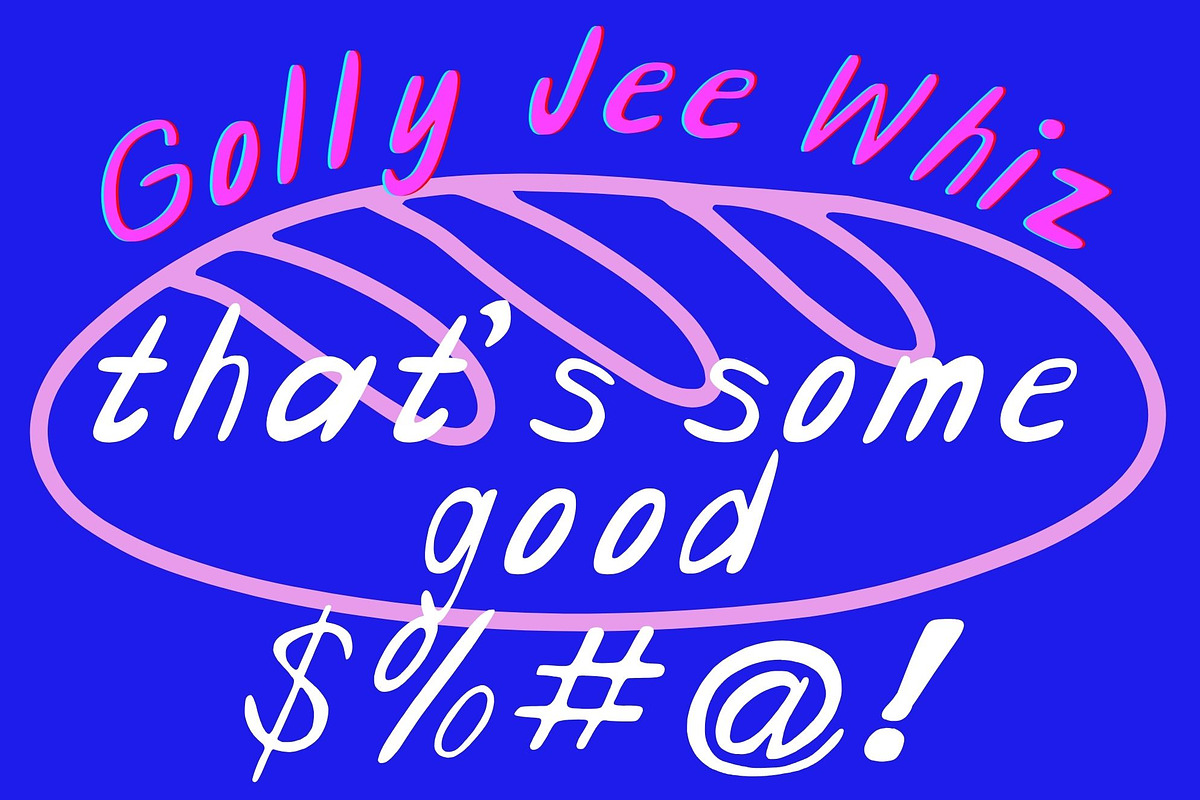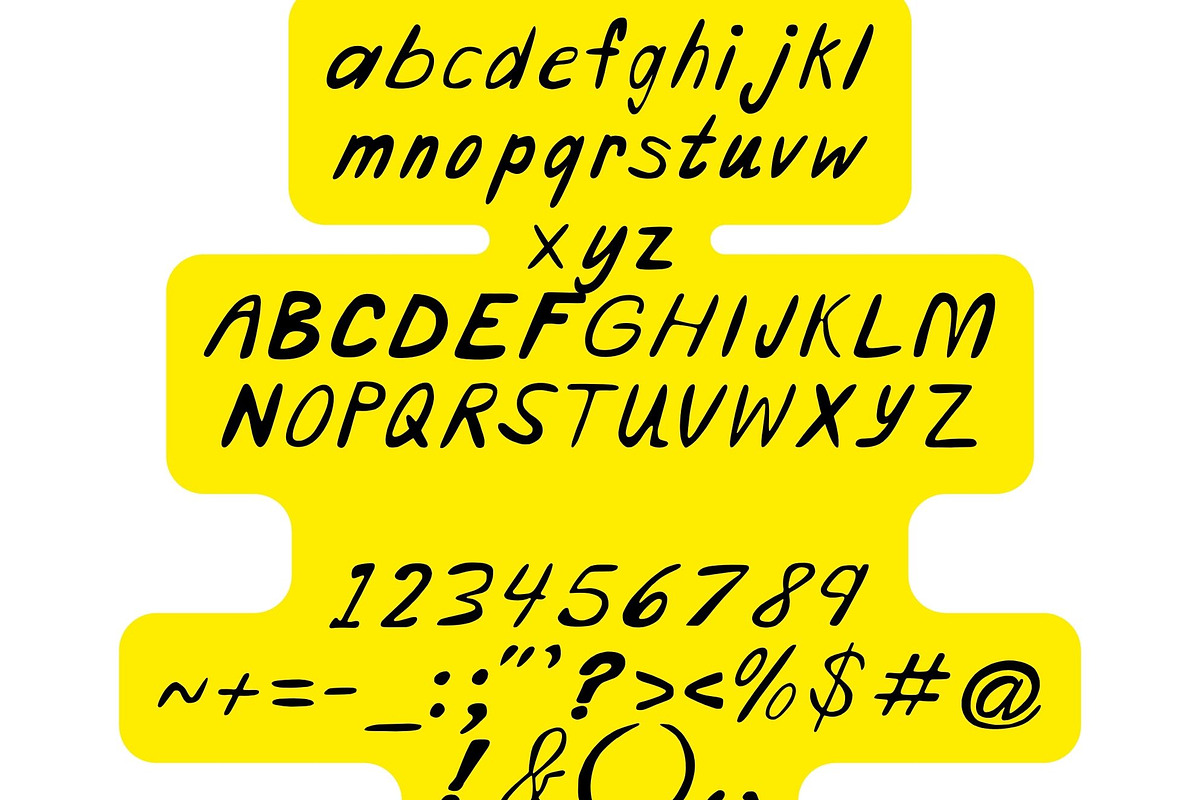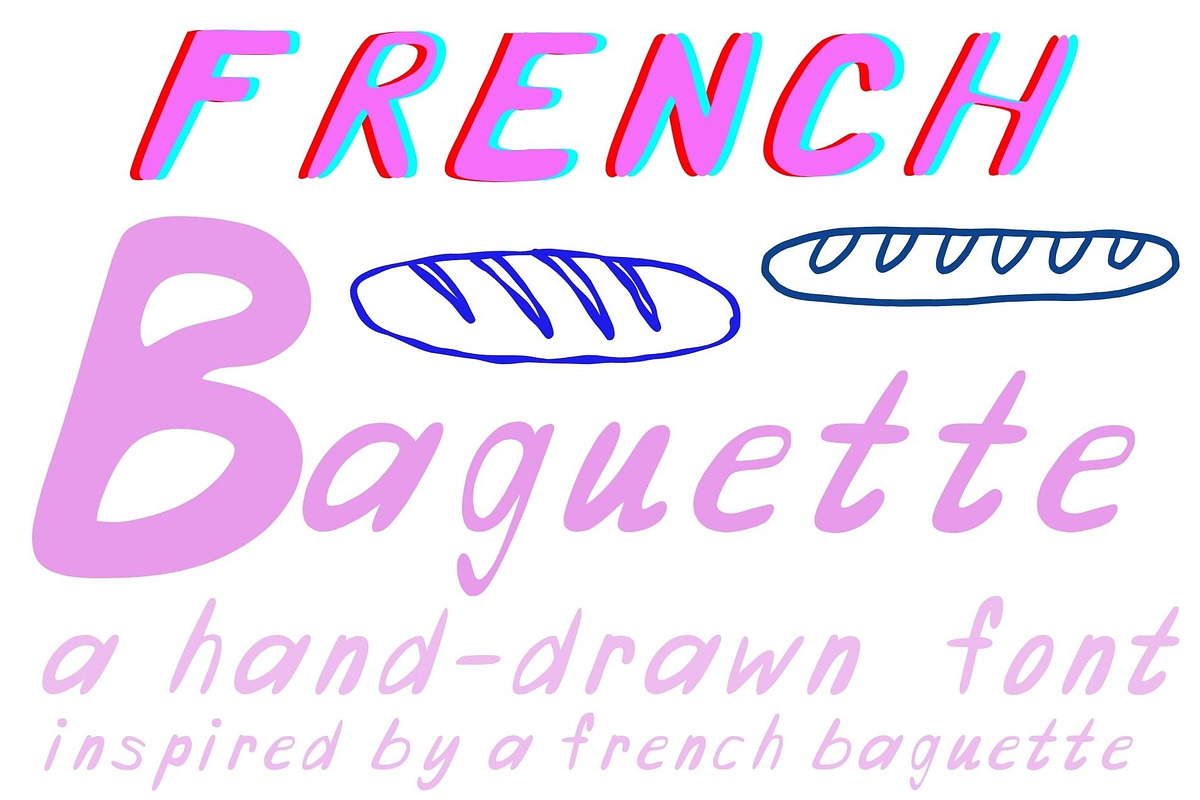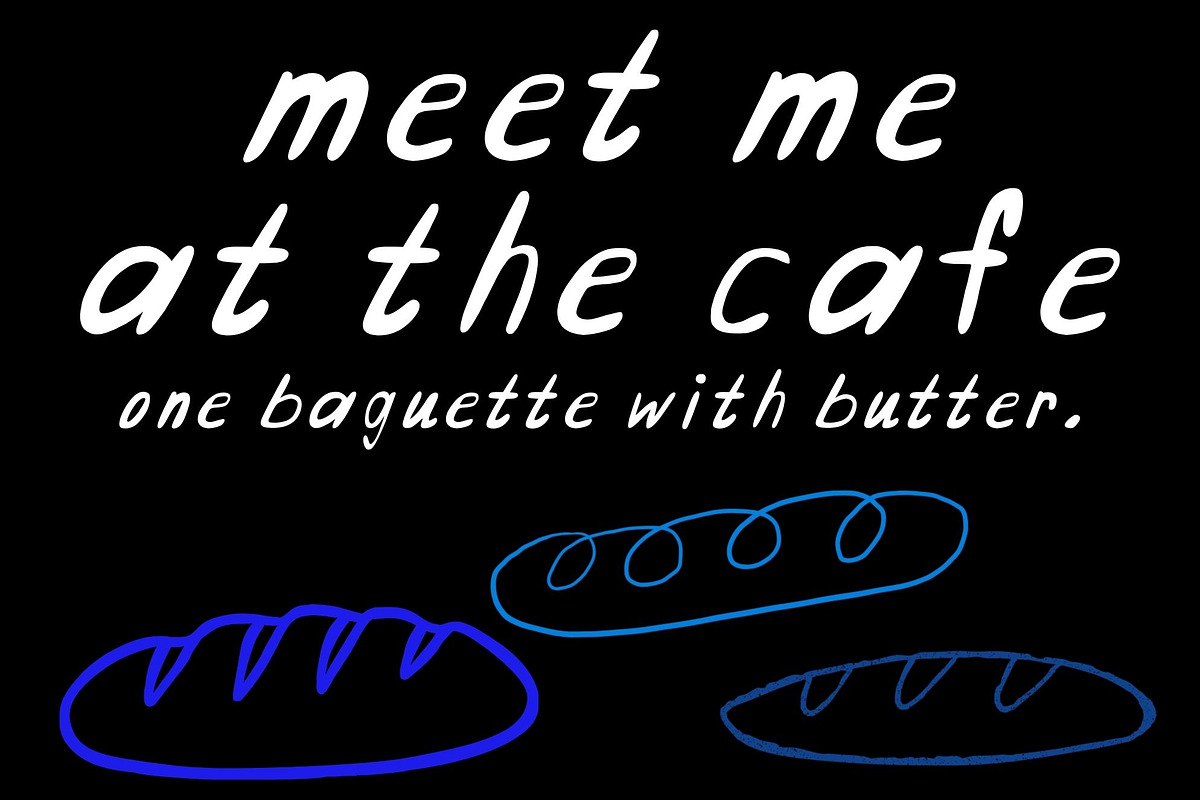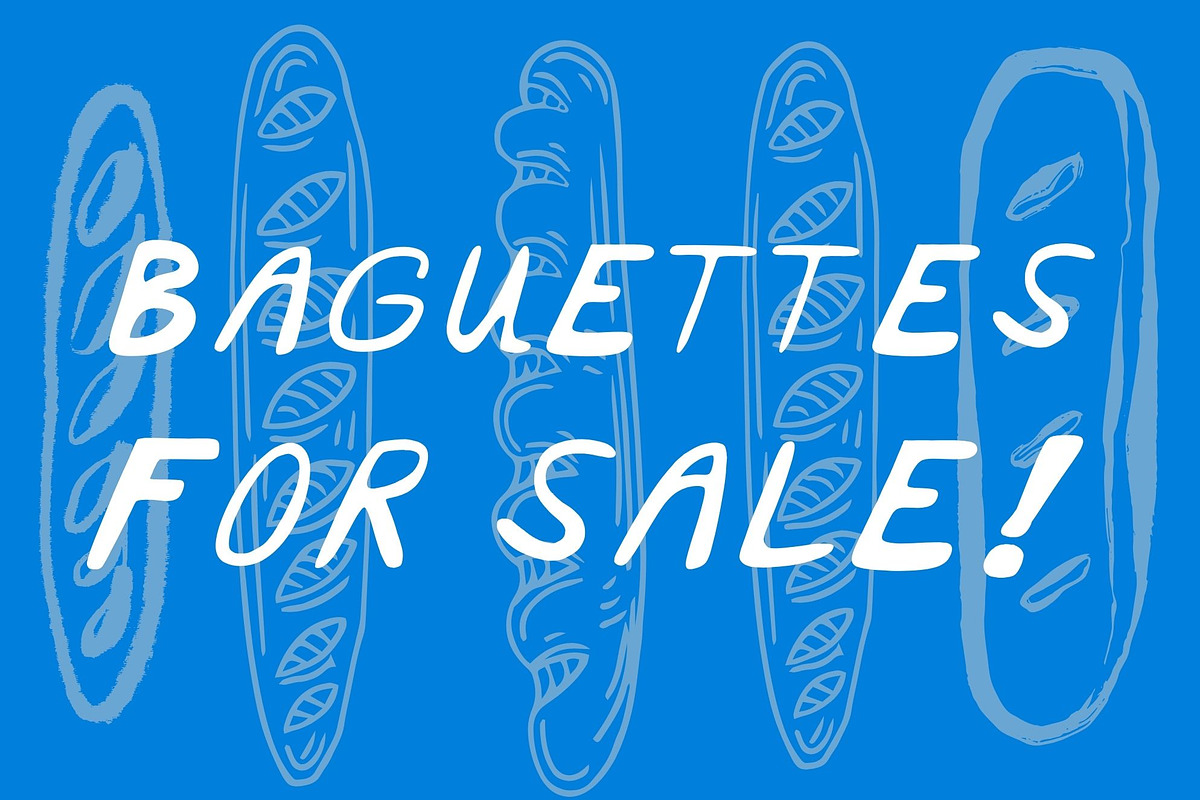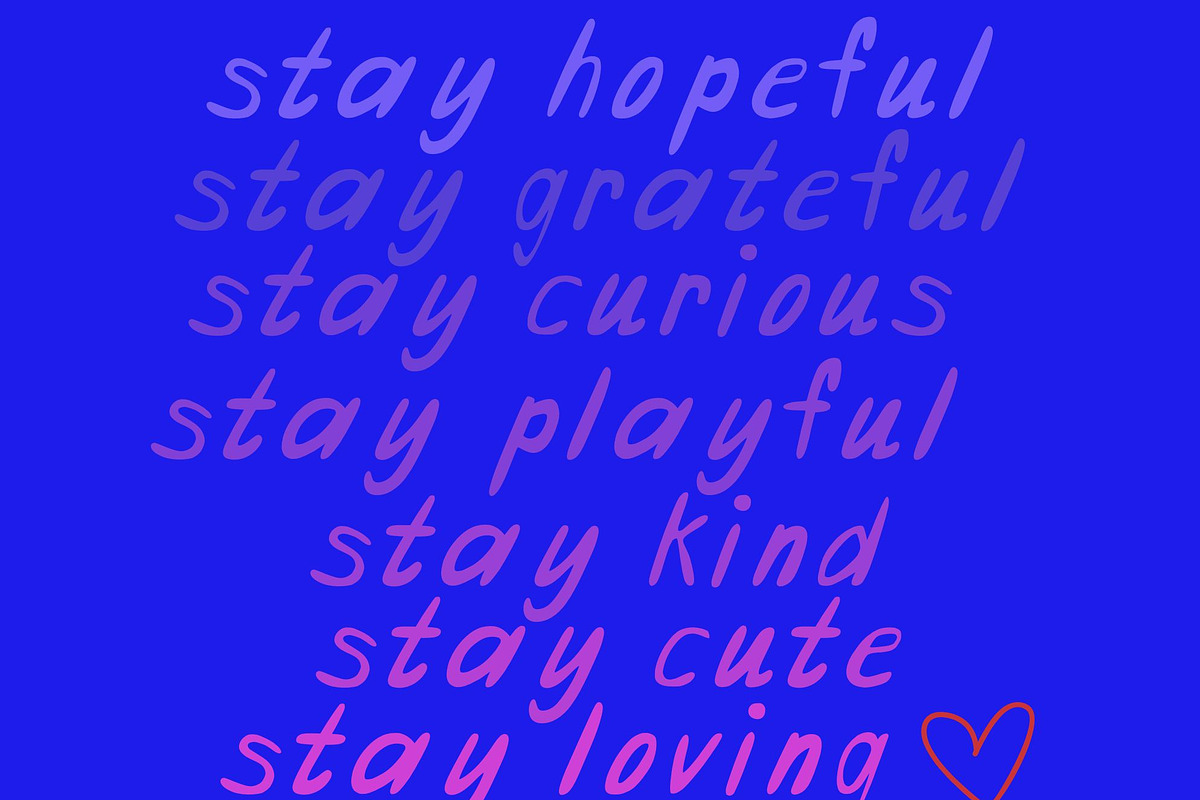
French Baguette Aesthetic Font
French Baguette is a hand-written font, with artsy charm. Think cafe culture vibes, or strolling a French side-street in the summer-time... think biking with your baguette in your bike basket. Are you a designer who uses a lot of outlined and quirky illustrations ? Do you love a "hand-done" aesthetic in your design work ? This font goes wonderfully with lined and artful illustrations of cafe scenes, people, animals... This font is great for children's based design and for designers who use a lot of illustrations.
- full alphabet : lower case and capital letters
- contains main symbols